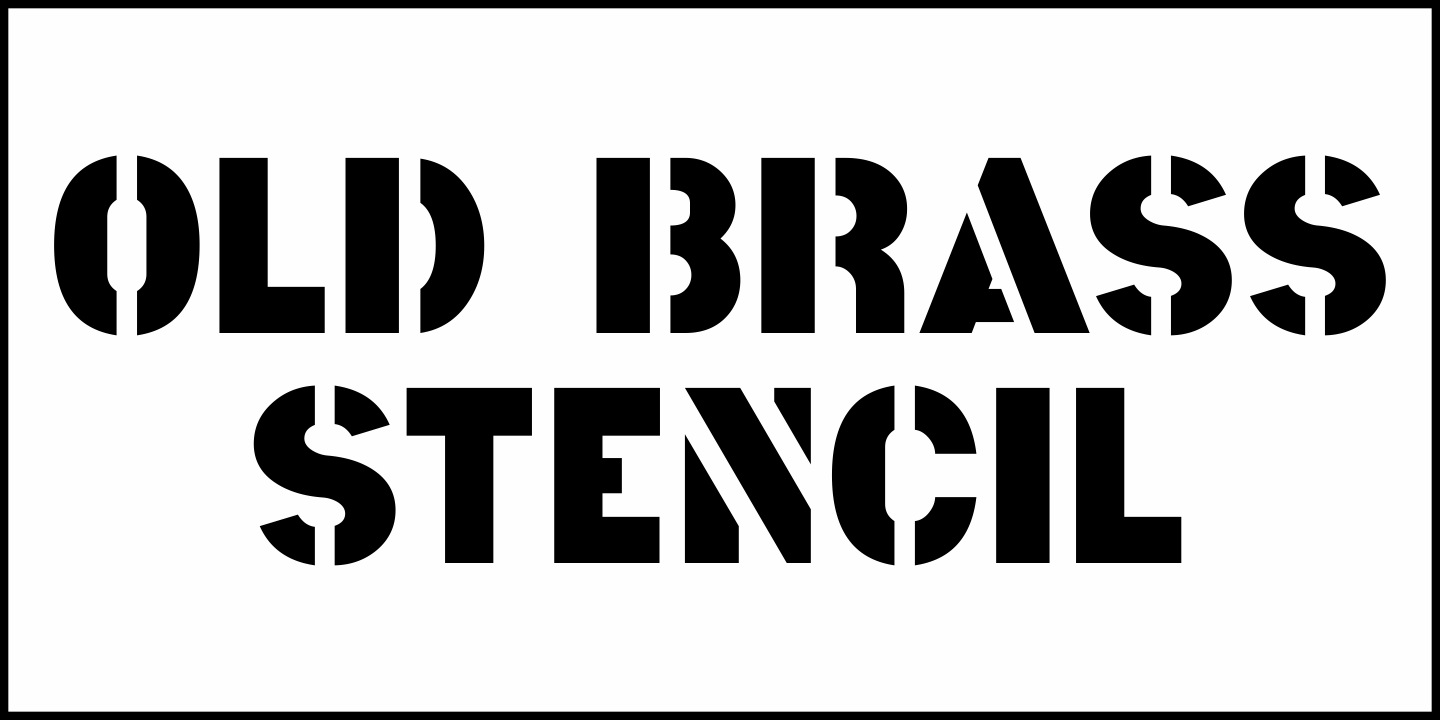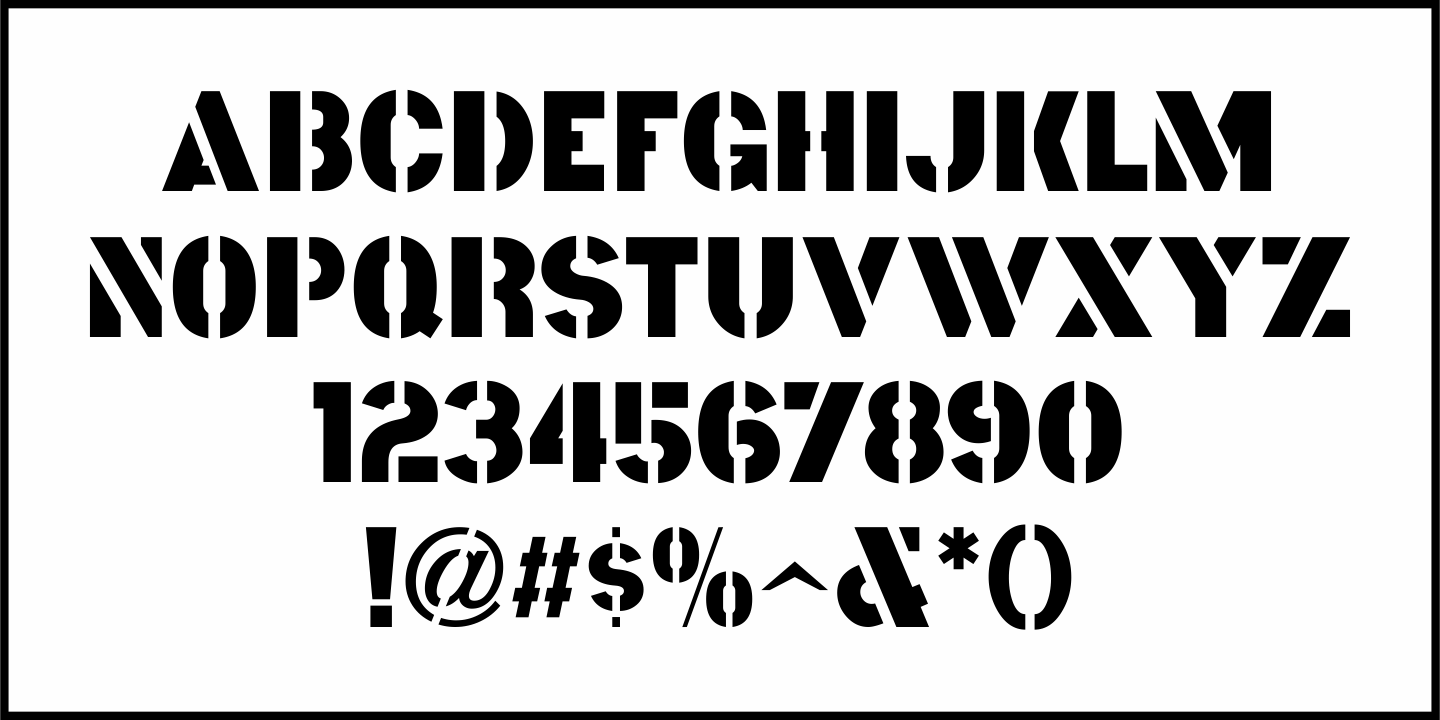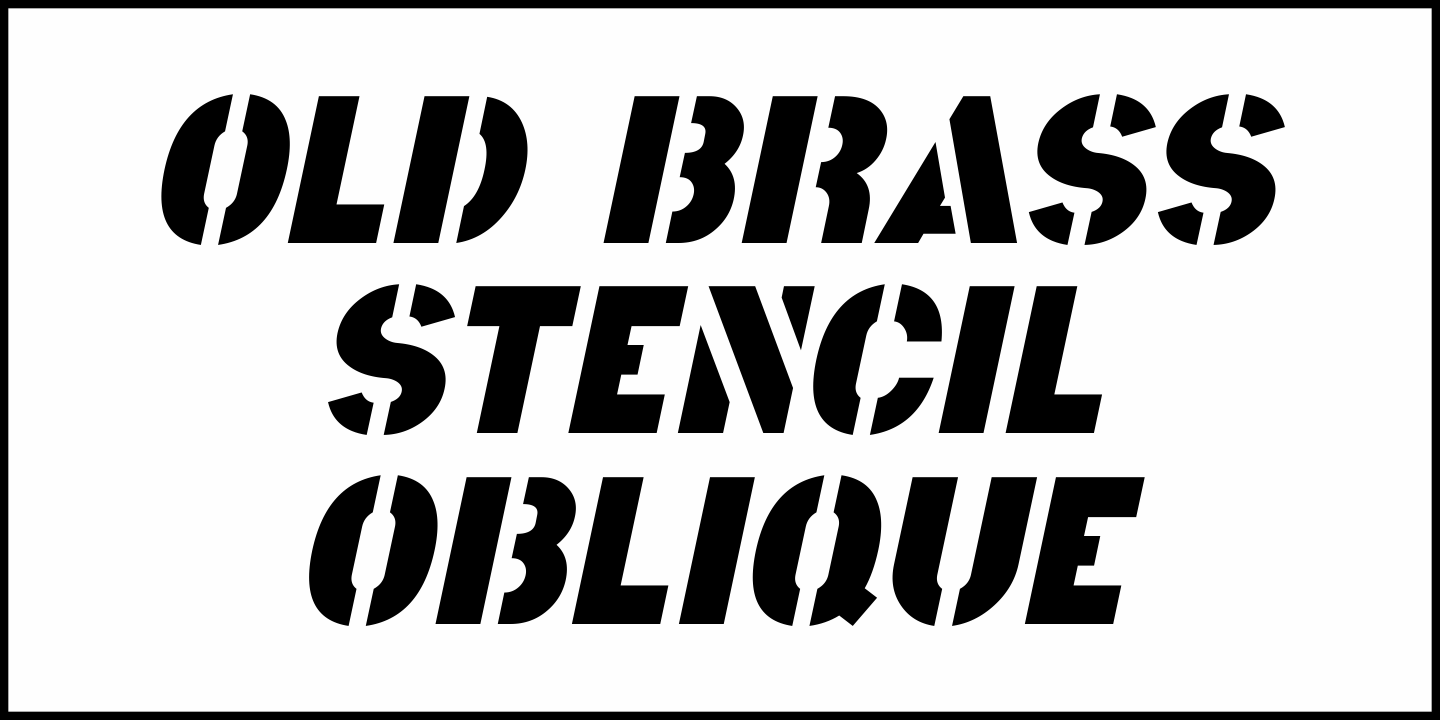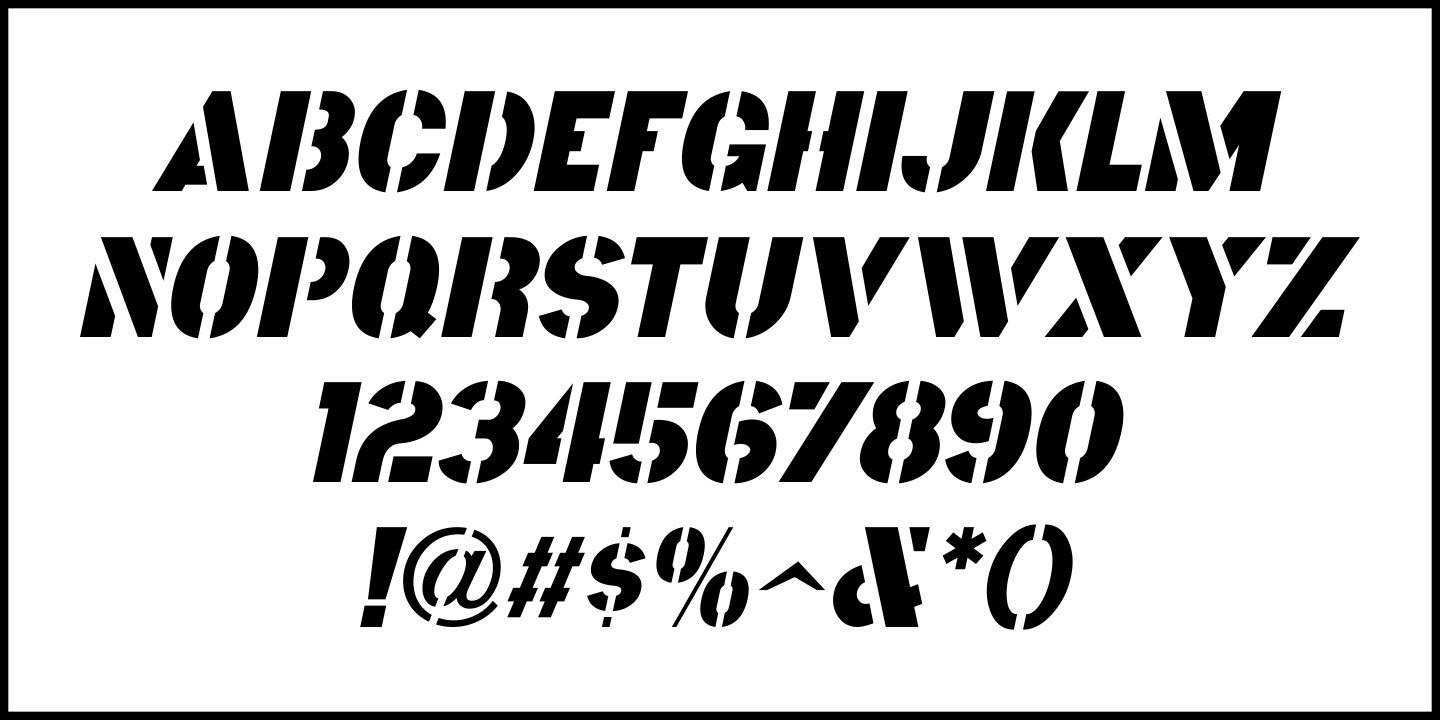
Old Brass Stencil
An antique barrel lid stencil spotted in an online auction for a company once located in Guttenberg, NJ provided the hand-cut sans serif lettering which inspired Old Brass Stencil JNL; available in both regular and oblique versions.